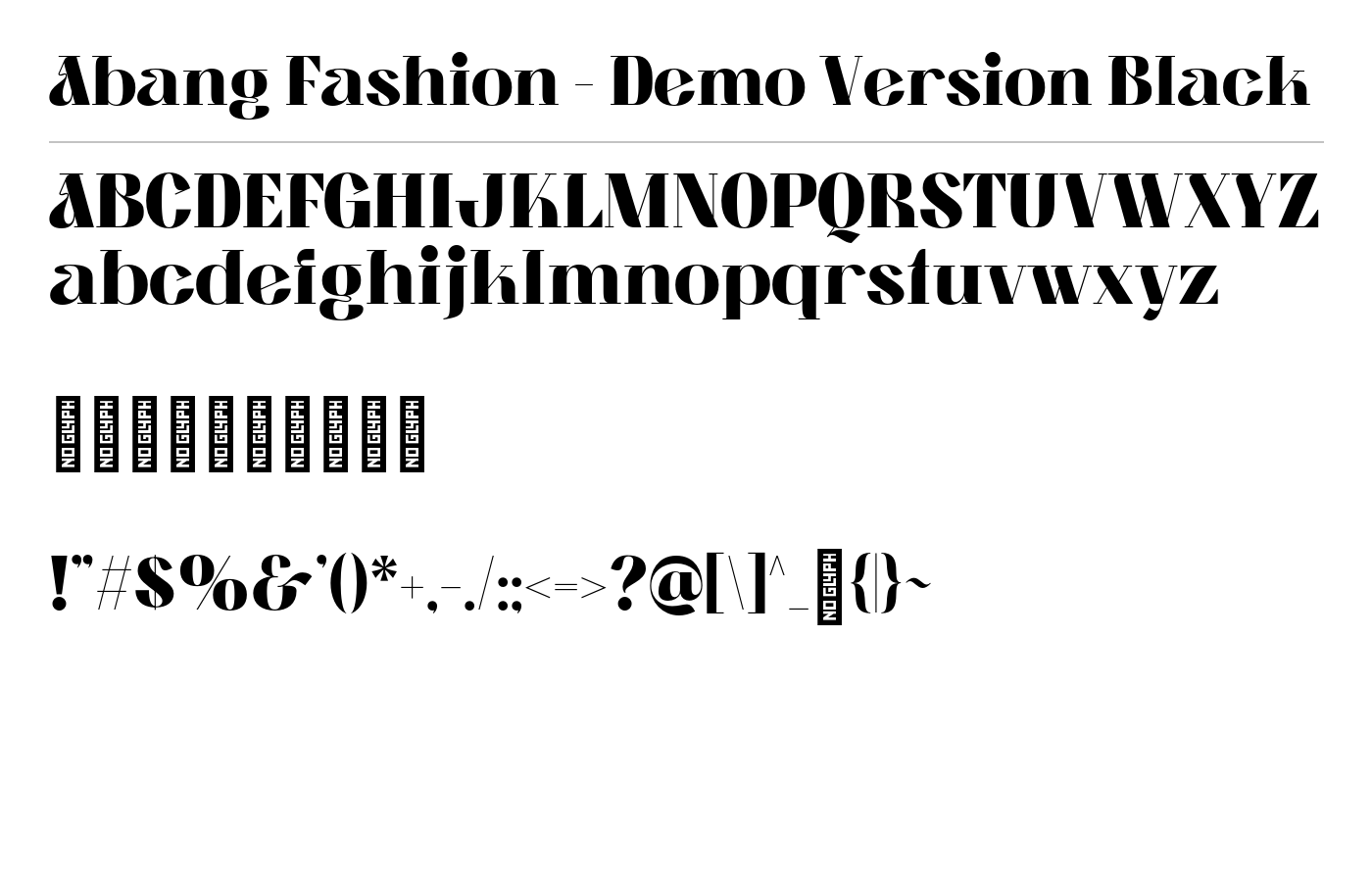
Abang Fashion - Demo Version is a bold, modern serif font with high contrast between thick and thin strokes, featuring sharp, unbracketed serifs that create a striking and elegant appearance. Its unique letterforms, such as the single-story "a" and distinctive "Q" tail, add a fashionable and sophisticated flair, making it ideal for luxury branding, headlines, and editorial design where a strong, stylish impact is desired.
Abang Fashion - Demo Version Font
About Abang Fashion - Demo Version Font
| Designer | Sigit Dwipa Raharjo |